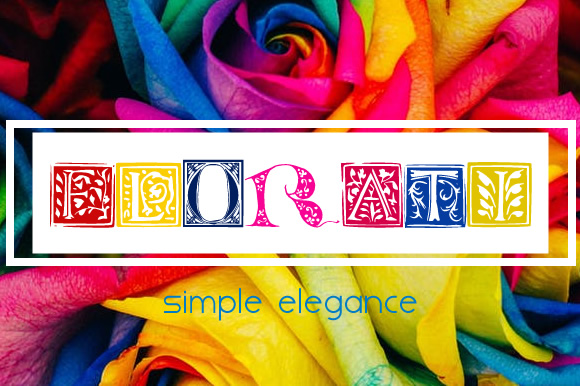
Immerse yourself in the grandeur of Florati Font, an exquisite collection of decorative capitals that transport you back to the splendor of the Incunabula era. Imagine the joy that early printers would have experienced if they had access to such an opulent font.
With a treasure trove of 150 glyphs, Florati Font offers you a vast array of ornamental initials and drop caps, meticulously crafted to emulate the finest examples from the early 1500s. Each character is a testament to the artistry and craftsmanship of renowned printers like Thomas de Blavis and Günther Zainer, bringing a touch of historical elegance to your digital creations.
Whether you seek to embellish your designs with regal flourishes or add a touch of sophistication to your branding, Florati Font is an exceptional choice. Its graceful curves and intricate details evoke a sense of timeless beauty, transforming your words into captivating works of art.
Let Florati Font ignite your imagination and elevate your designs to new heights. From intricate invitations to captivating posters, this font empowers you to express your ideas with an air of refinement and sophistication. Immerse yourself in the charm of Florati Font and witness the transformative power it brings to your creative endeavors.